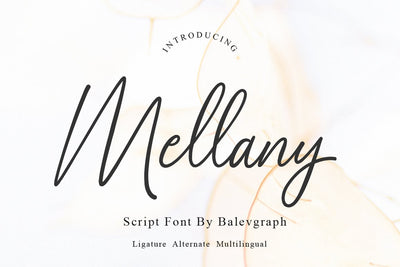
Mellany Script Font
Mellany handwritten script font would be perfect for photography, watermarks, social media posts, advertisements, logos & branding, invitations, product design, labels, stationery, wedding designs, product packaging, special events, and other projects.
- Uppercase, Lowercase, Numeral & Punctuation
- Ligature & Alternates
- Multilingual